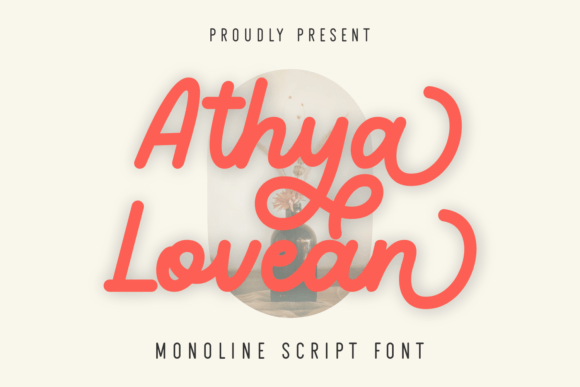
The Designer’s Delight: Athya Lovean Font
I still remember the frustration of working on a logo design project, only to hit a roadblock when searching for the perfect font. My client wanted something elegant, yet bold; stylish, yet legible. It was as if I was searching for a needle in a haystack. That’s when I stumbled upon the Athya Lovean font, and it was love at first sight! 💕
This bold monoline script font has been a game-changer for my design projects, and I’m excited to share its beauty with you. In this article, we’ll dive into the world of Athya Lovean, exploring its features, uses, and some practical tips on how to make the most of this stunning typeface.
A Honest Review: The Good and the Great
- ✨ Elegant and stylish design that’s perfect for logos, banners, and restaurant menus
- ✅ Bold and monoline, making it highly legible
- 🌈 Versatile and suitable for various design projects, from cards to posters
While Athya Lovean is an exceptional font, there are a few minor limitations to consider:
- 🤔 Limited availability of language support (but it’s still a great option for English-based projects)
- ⚠️ Some users may find the font a bit too bold for certain design applications
- Experiment with OpenType features, such as ligatures and stylistic alternates, to add a personal touch to your design
The Story Behind Athya Lovean: Designer Inspiration
Athya Lovean was crafted with passion and dedication by a talented font designer. Although the designer’s story is shrouded in mystery, it’s clear that they drew inspiration from the world of high-end fashion and luxury branding. The result is a font that’s both sophisticated and stylish, perfect for designers seeking to elevate their projects.
Q: What is the primary use of Athya Lovean font?
A: Athya Lovean is a versatile font suitable for various design projects, including logos, banners, restaurant menus, cards, and more.
Q: What are some potential design applications for Athya Lovean?
A: Athya Lovean is perfect for designs that require an elegant, bold, and stylish touch, such as luxury branding, fashion magazines, and high-end product packaging.